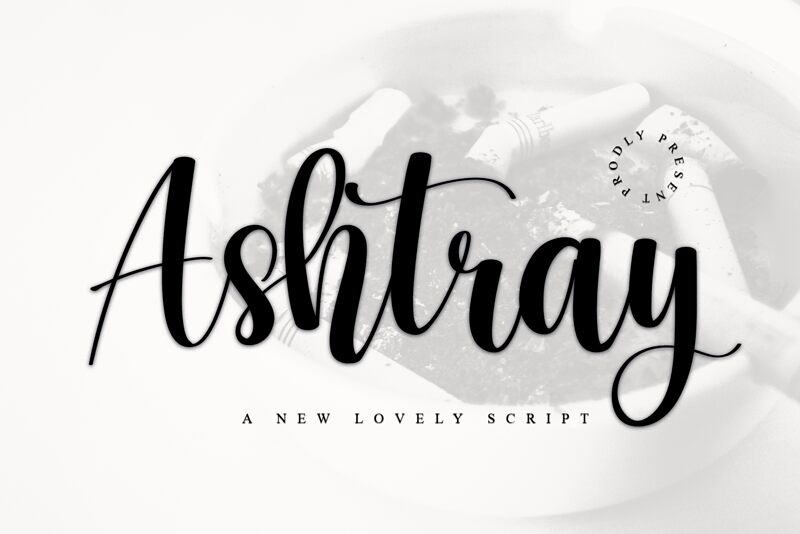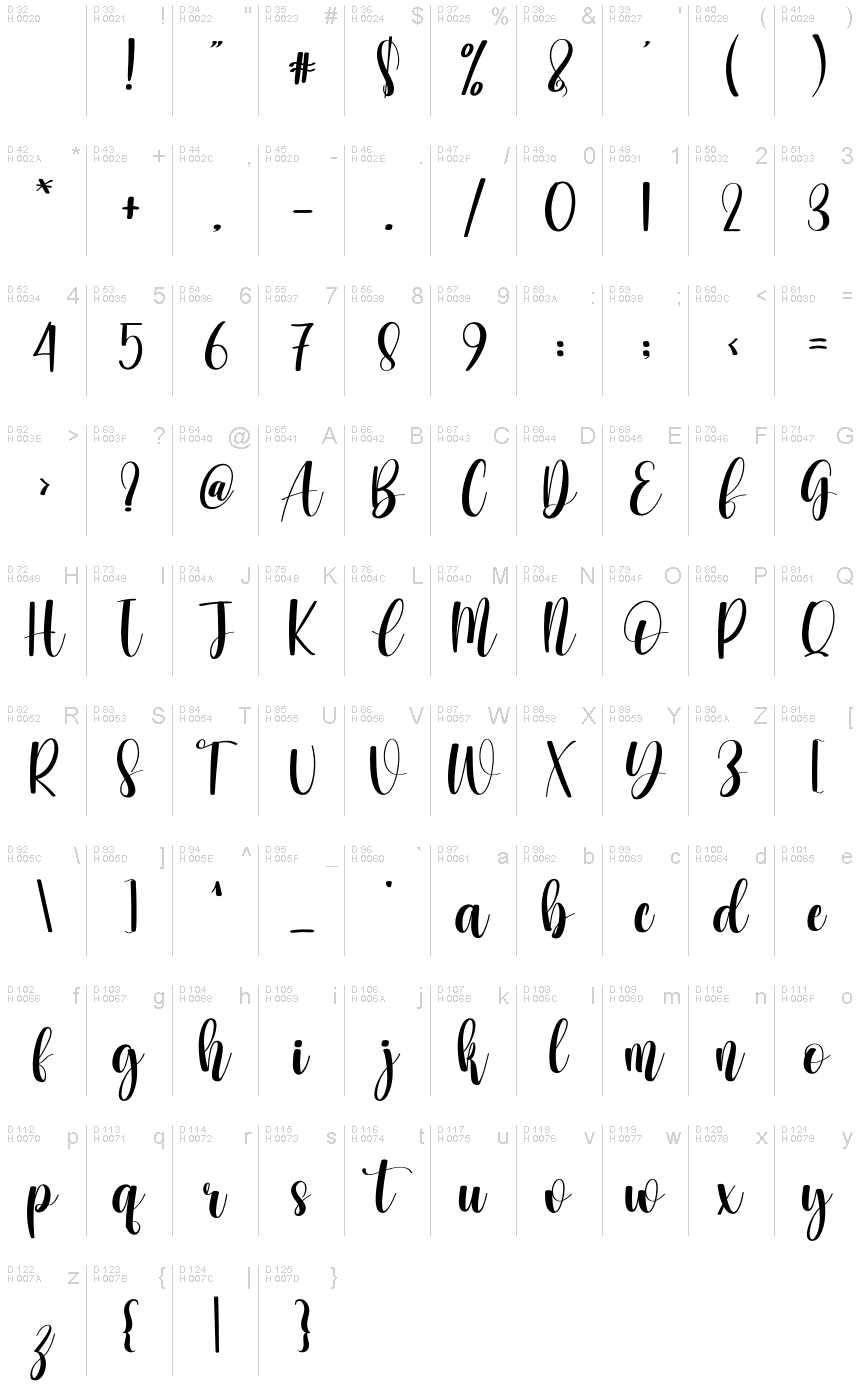
Ashtray
Ashtray, designed by plafont store, exudes a spontaneous charm with its handwritten style that seems to dance across the page. Its fluid strokes and variable line thickness evoke the look of elegant calligraphy, giving it a personal touch that feels both contemporary and timeless. The font's aesthetic appeal lies in its balance of casual flair and sophistication, making it versatile for a range of applications.
Ideal for projects that require an intimate or artistic vibe, Ashtray can add personality to invitations, branding materials, and even editorial designs where a touch of human presence is desired. This font's stylish allure ensures that any message conveyed is not just read but felt.
This font retains a classy calligraphic influence while feeling contemporary and fresh. This versatility will attract a wide range of creative ideas, from letterheads and titles to stationery.